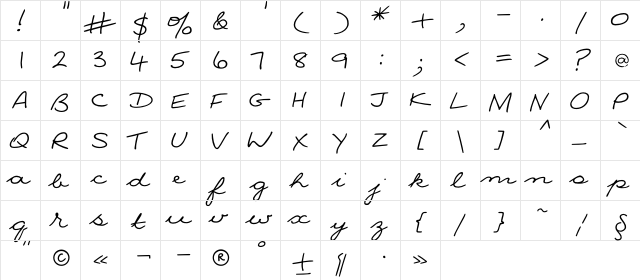
NinaC Regular
Design Context for NinaC Typeface
NinaC is a composed and adaptable typeface that performs quietly and consistently across a wide range of design contexts.